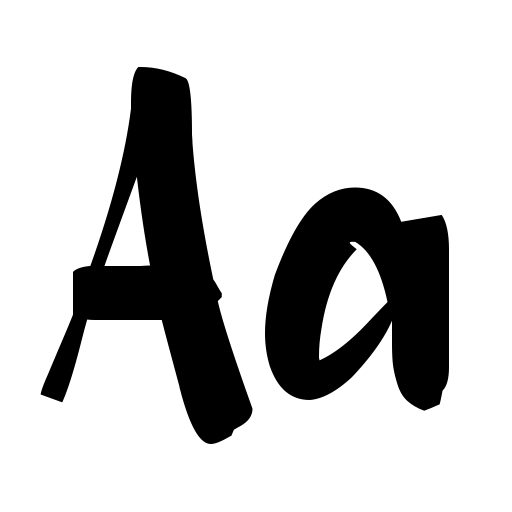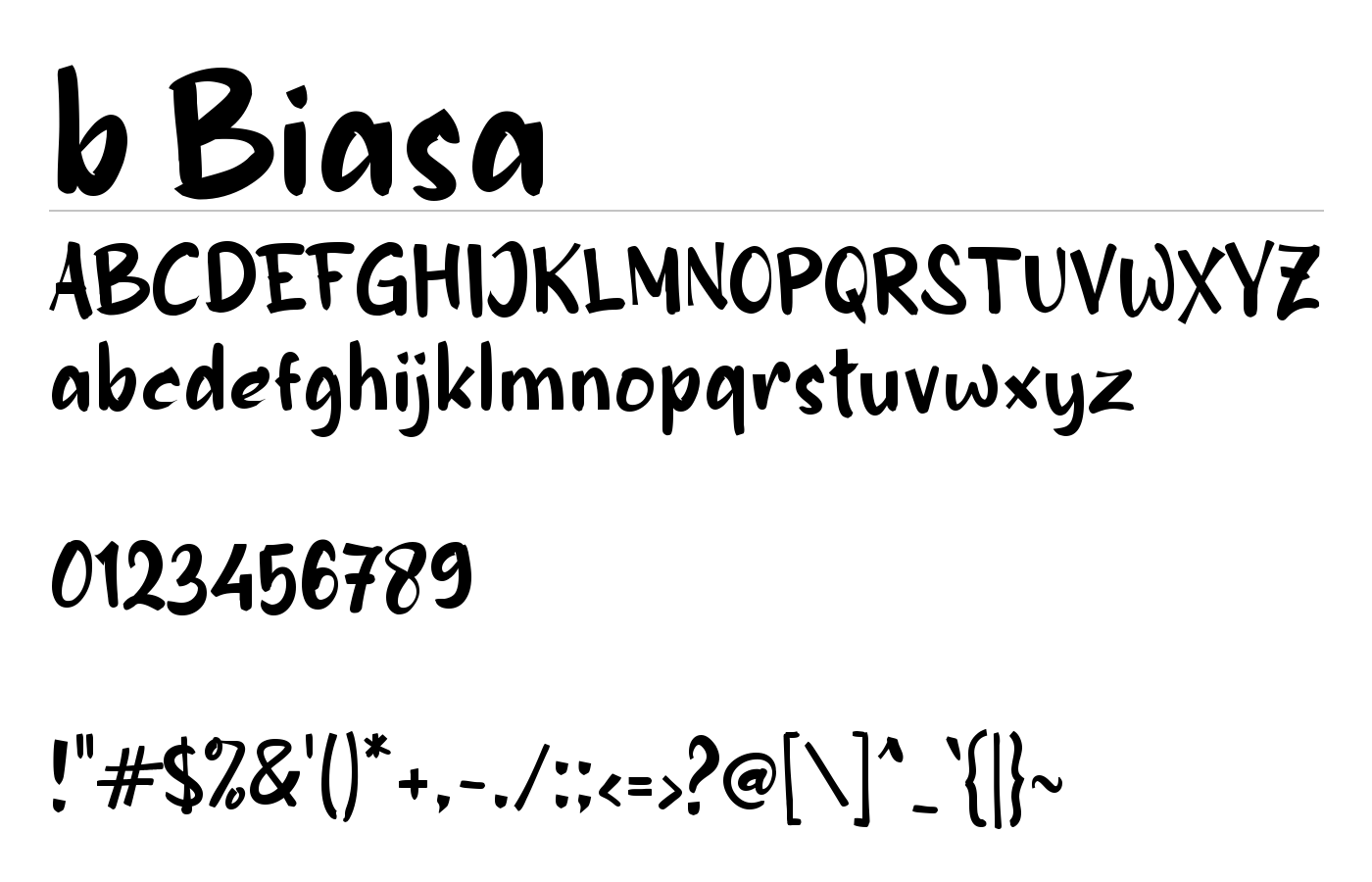
B Biasa is a playful, casual handwritten sans-serif font with a medium weight and slightly condensed width, offering a friendly and approachable feel. Its quirky letterforms feature subtle irregularities and a natural, hand-drawn style that works well for informal branding, creative projects, and fun headlines. This font is perfect for adding a warm, personal touch to posters, packaging, and web designs seeking a relaxed and approachable vibe.
b Biasa Font